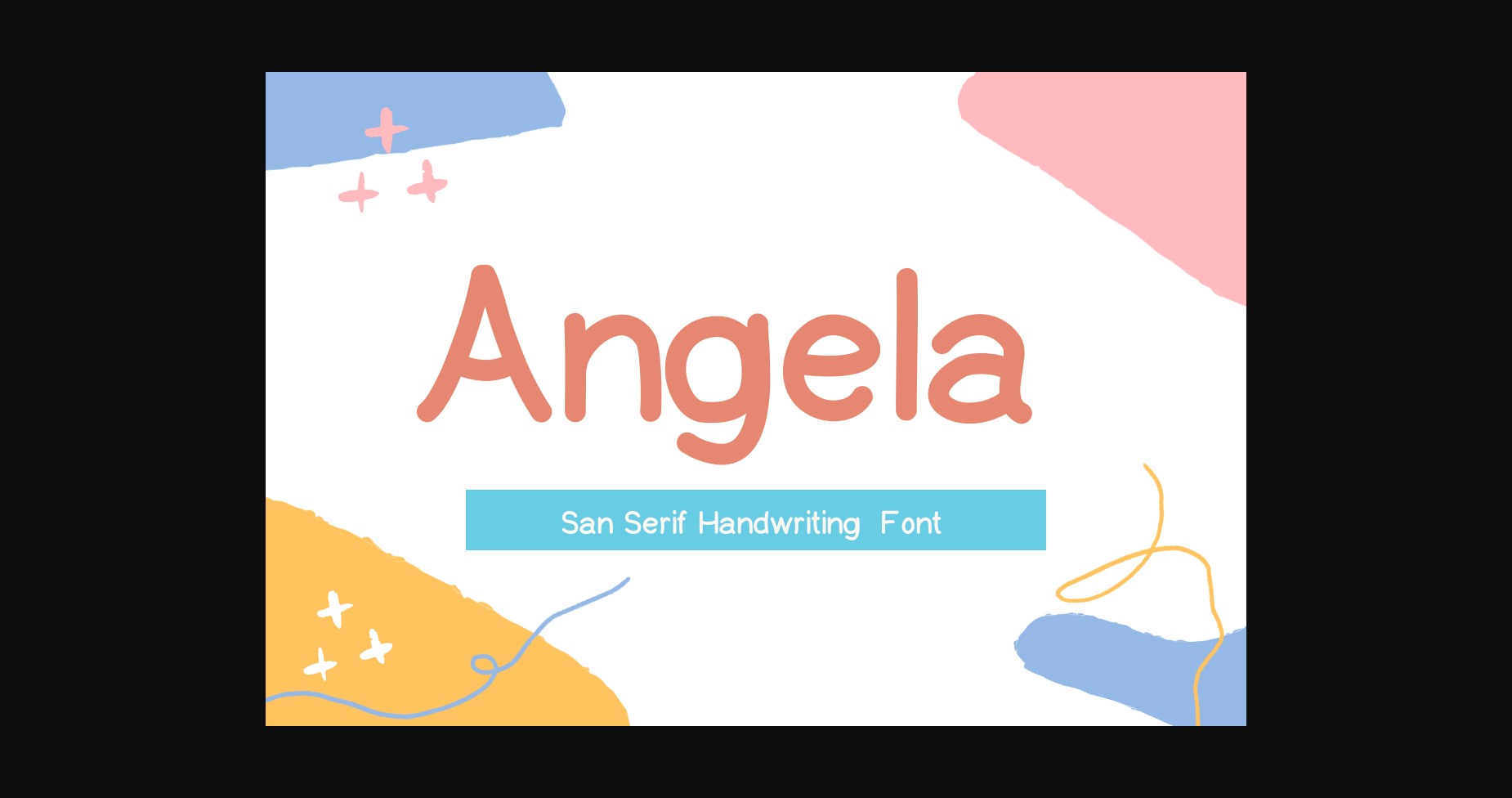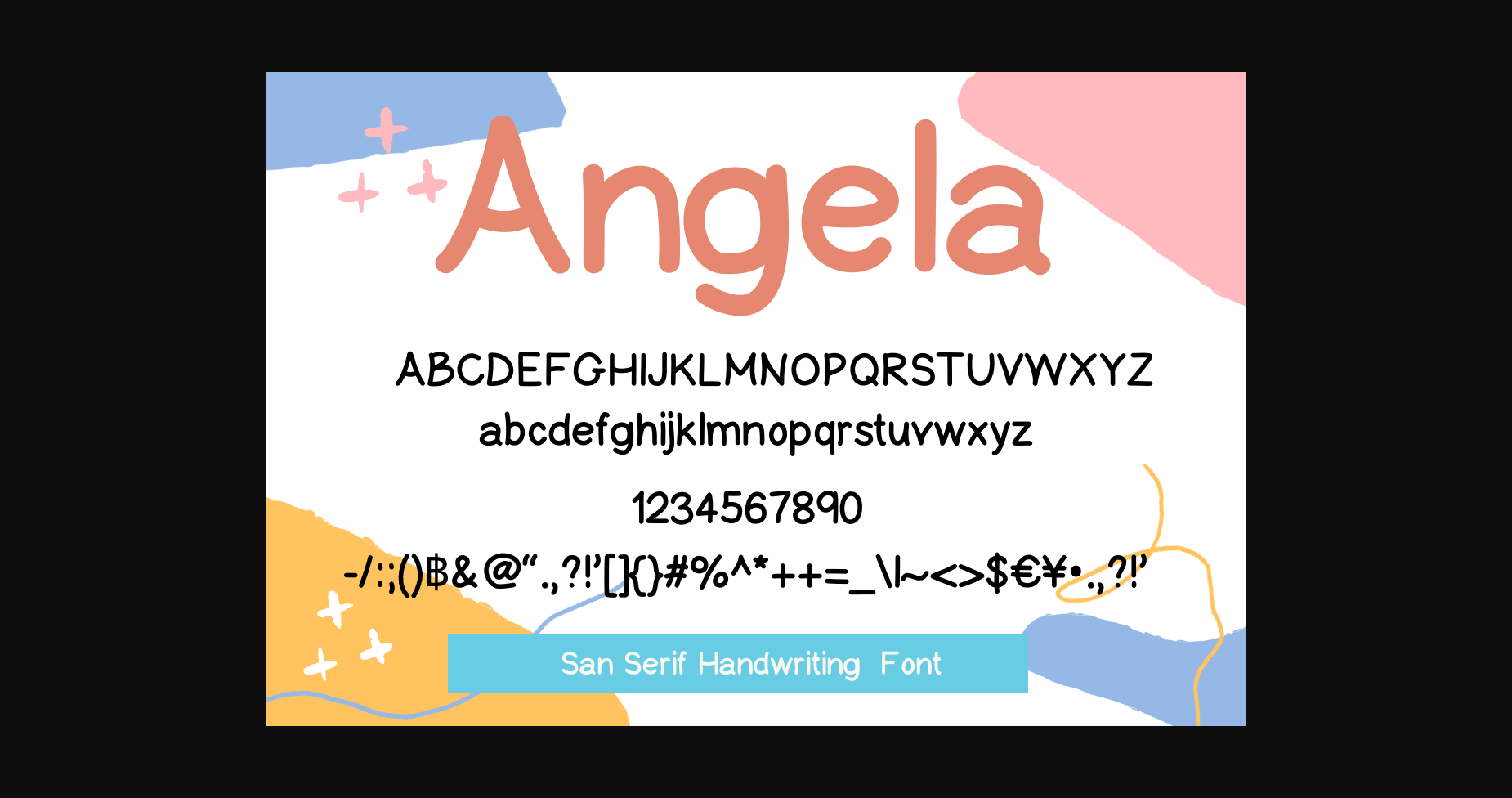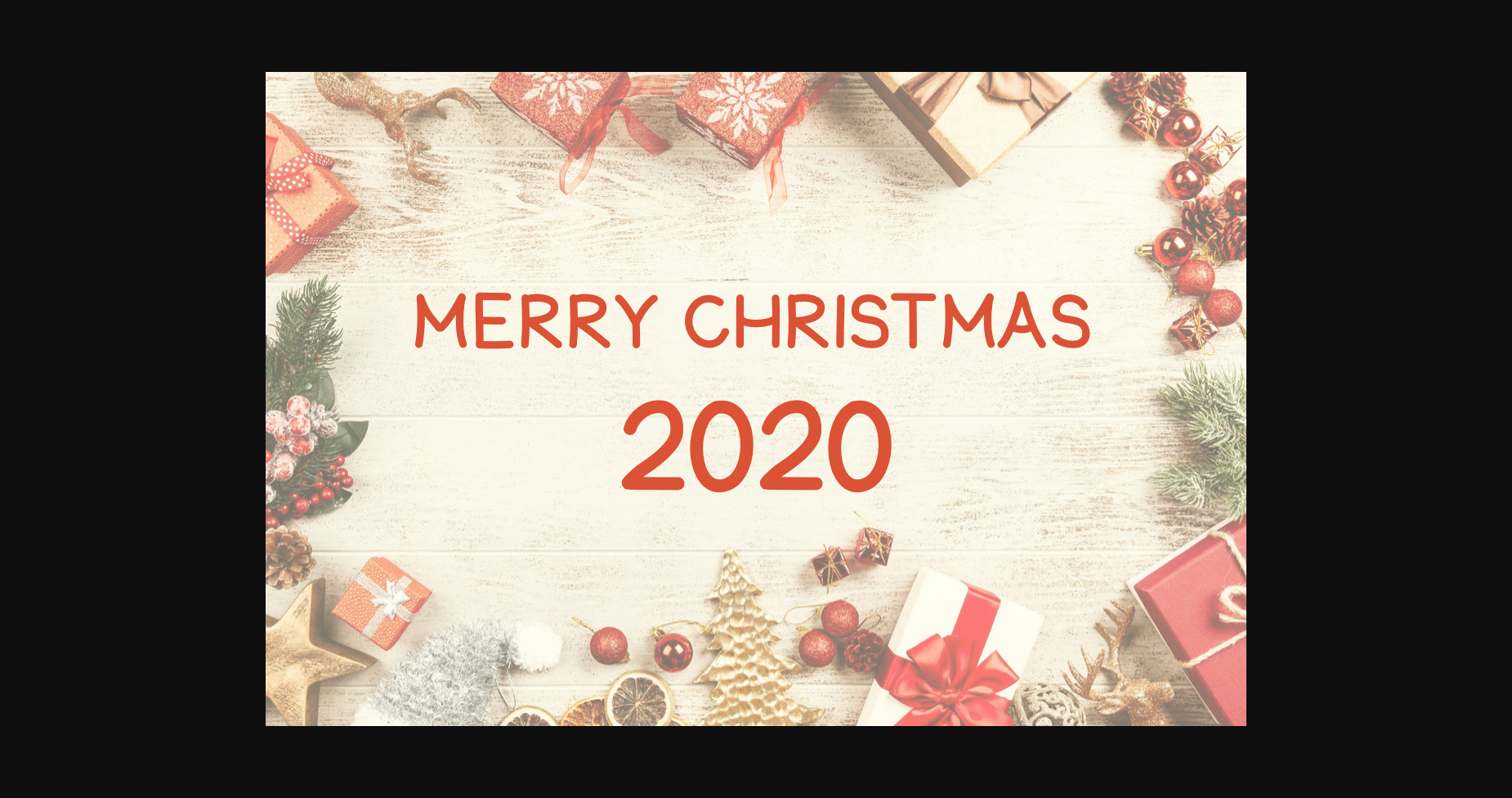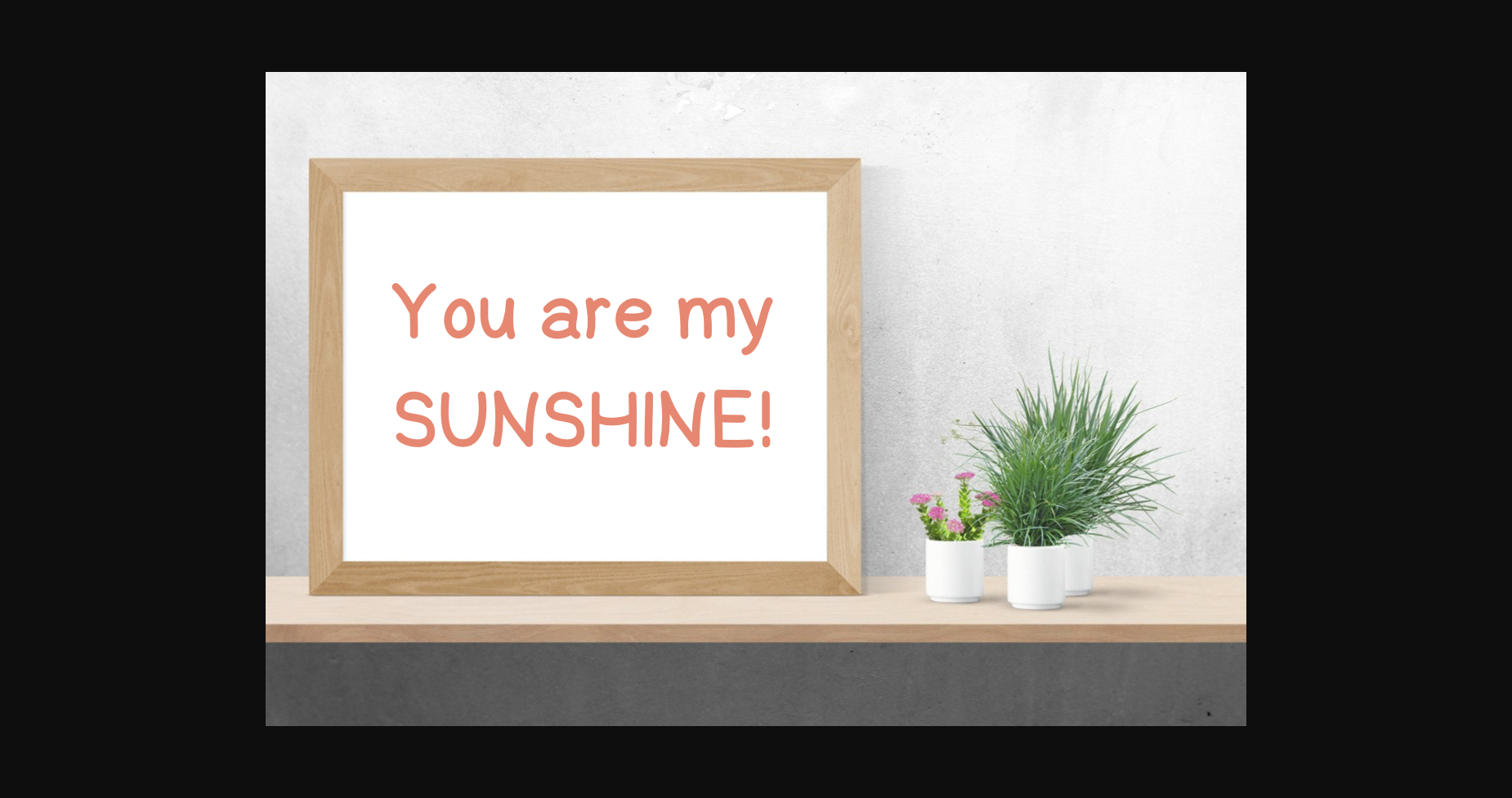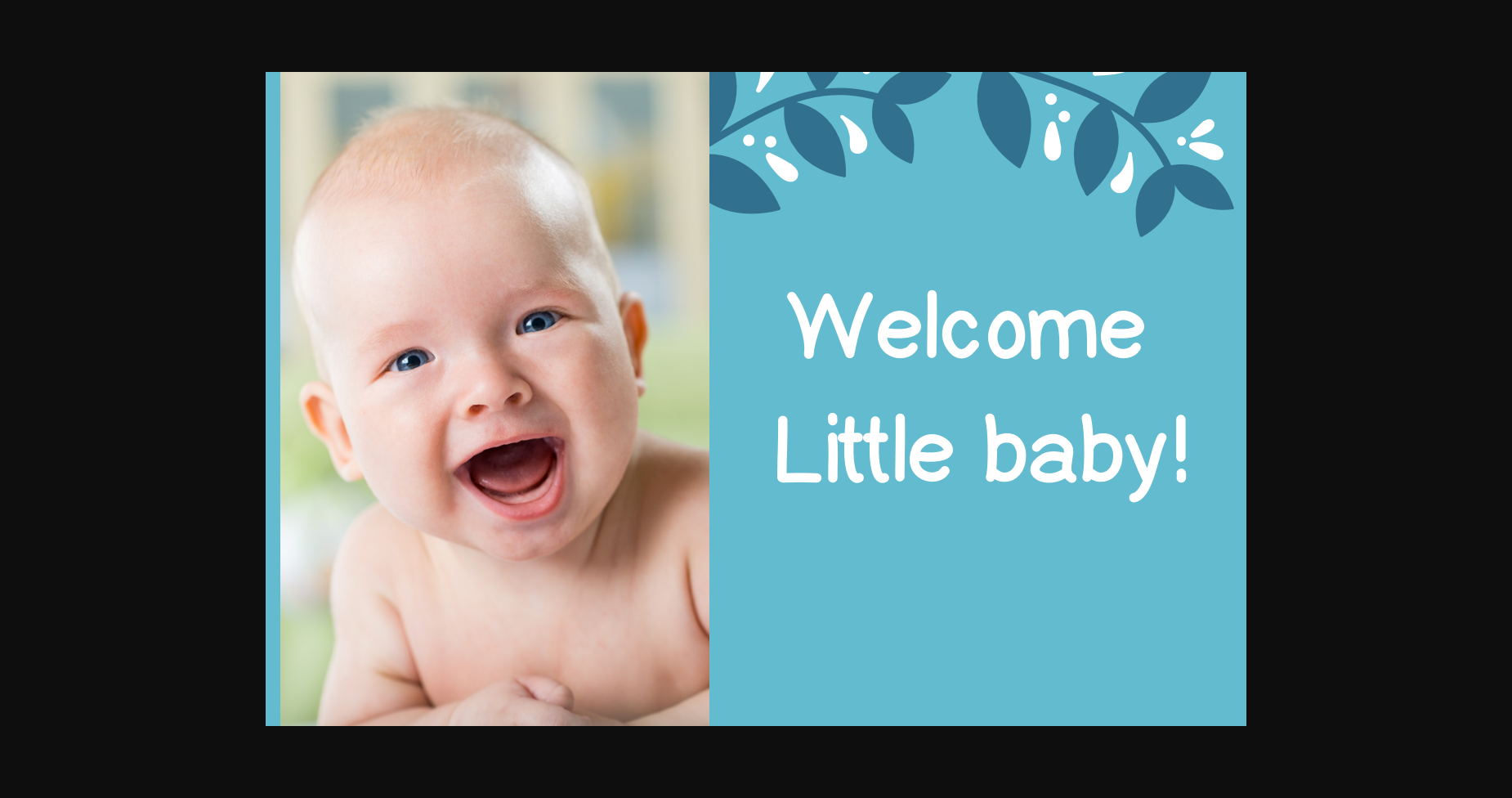
Angela is a simple and cute sans serif font with a lovely handmade feel. Use it to create unique wedding invitations, beautiful stationary art, social media posts, shirt designs, or more.